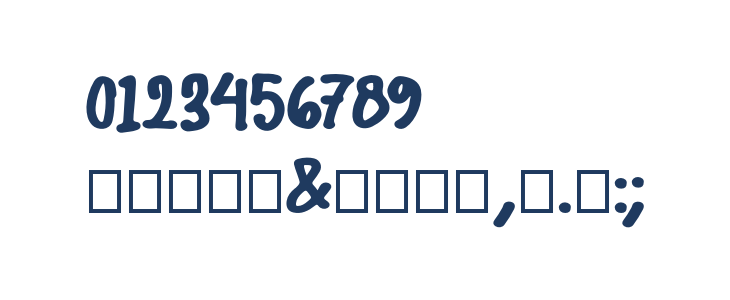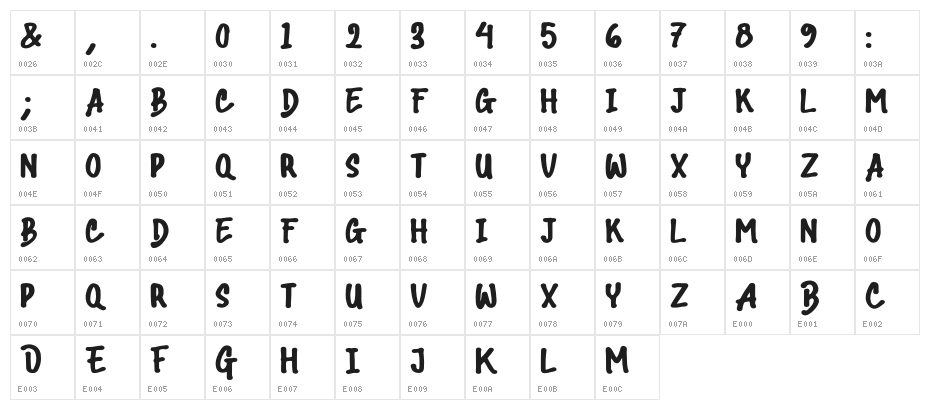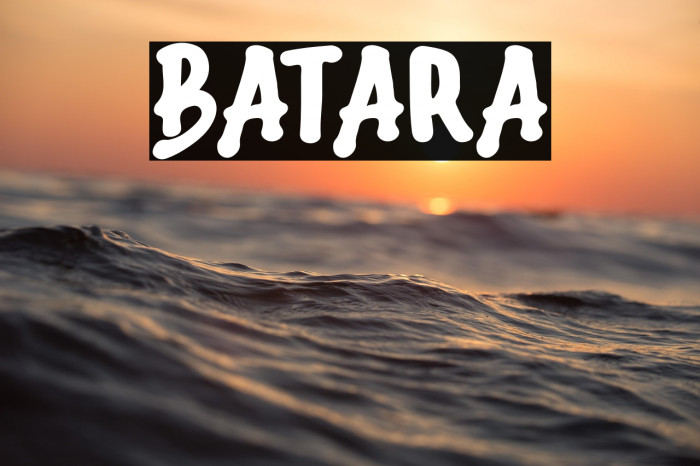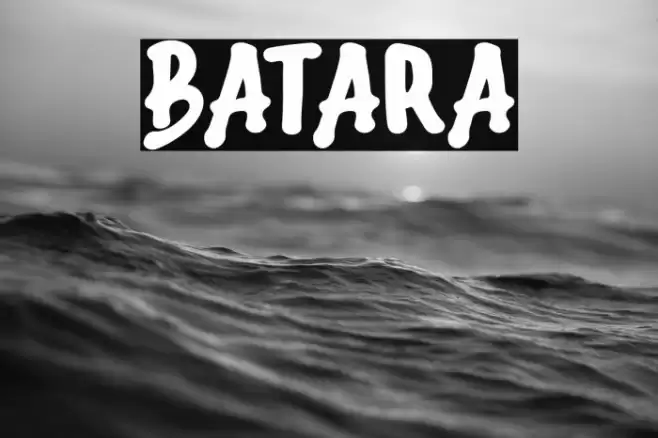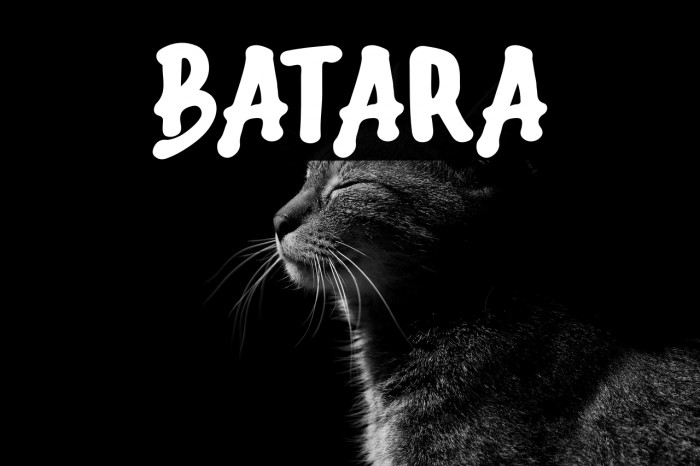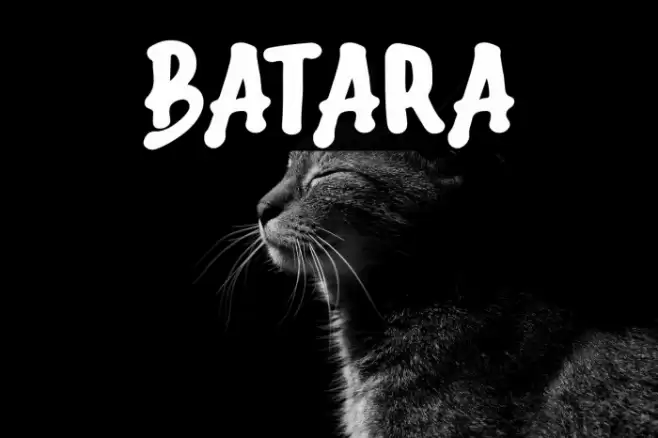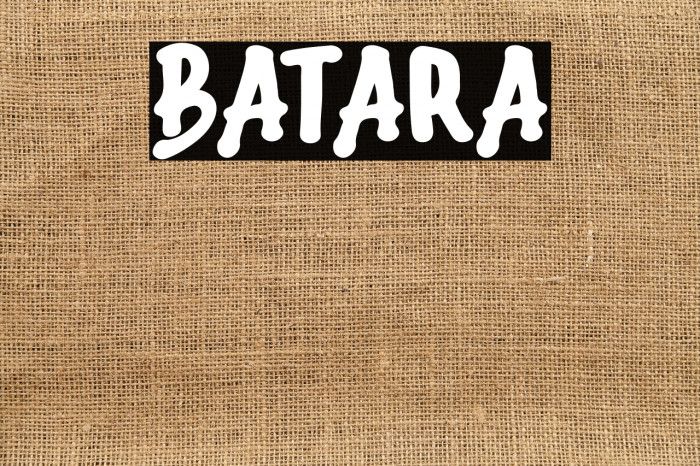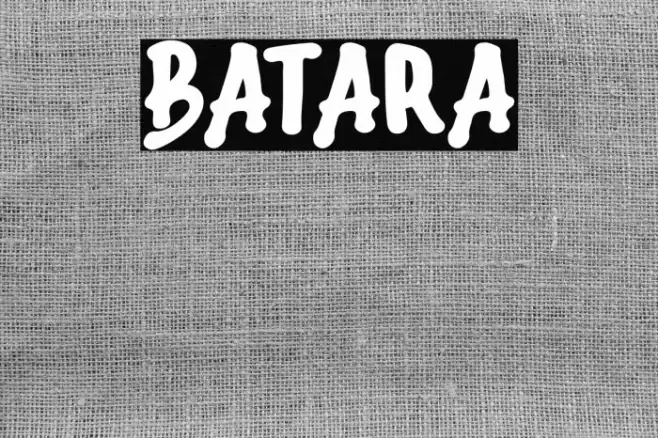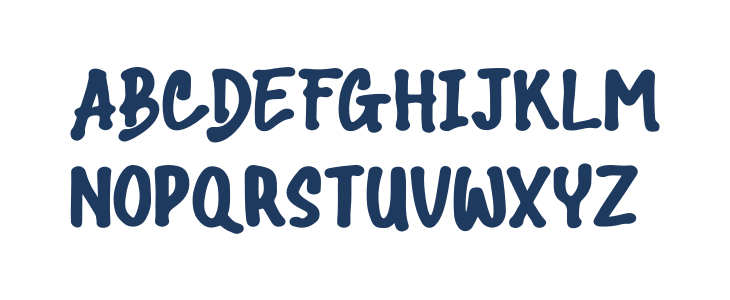
Batara Font
Batara Description
This font features a bold and playful handwritten style, characterized by its thick strokes and rounded edges. The letters have a casual and friendly appearance, making them suitable for informal and creative projects. The uppercase and lowercase letters maintain a consistent style, with a slight slant that adds to the dynamic feel. The numbers are equally bold and maintain the playful aesthetic. The special characters are designed to match the overall style, ensuring a cohesive look across all text elements.